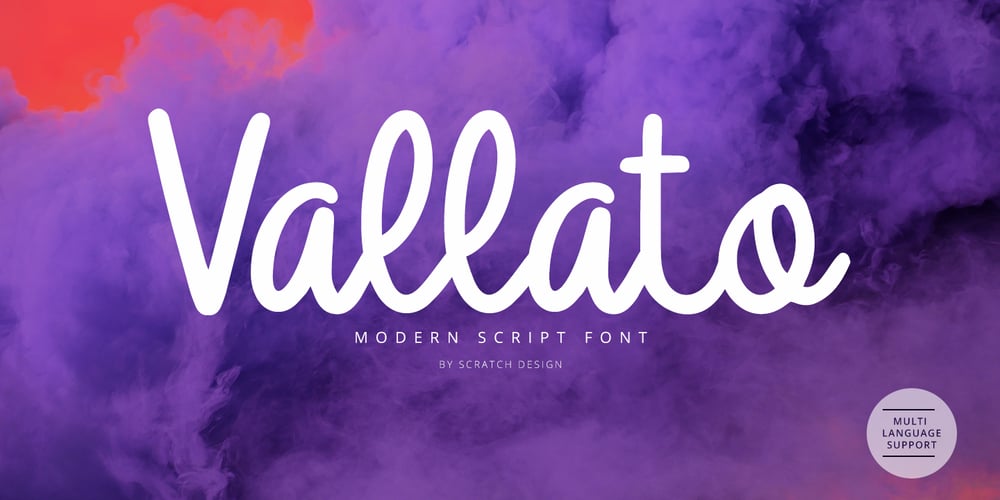
Vallato Font Family was designed by Gitayogi Irhandi and published by Scratch Design. Vallato contains 1 styles and family package options. Vallato is a modern script font made with an elegant concept, but still has a dynamic shape and makes this font look beautiful. Vallato very matches and useful for logo design, flyers, brochure, signature, quote text and also menu design for food & beverage.Feature: Uppercase & Lowercase Number Punctuation Ligature Multilingual Support (ÀÁÂÃÄÅÇDÐEÈÉÊËIÌÍÎÏNÑOØÒÓÔÕÖUÙÜÚÛWYÝŸỲŸÆŒßÞþ) Support in Mac and Windows OS Easy to install